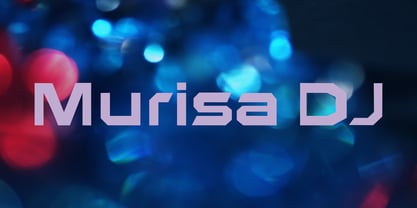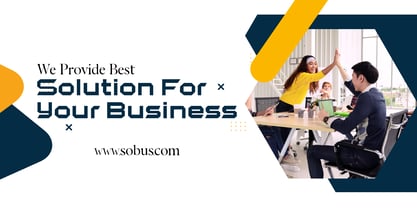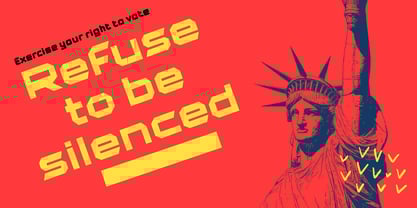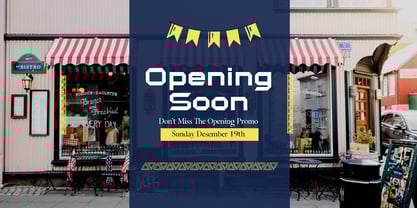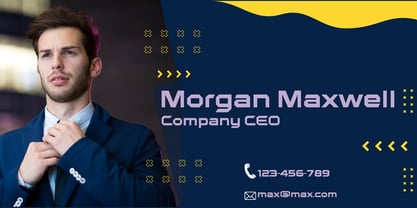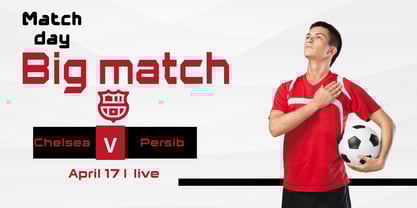
Murisa Dj
by Murisa Studio
The Murisa Dj Font Family was designed by Lili Sadili and published by Murisa Studio. Murisa Dj contains 2 styles and family package options. More about this family
Hello, how are you? It's great to be here. On this sunny afternoon, I'd like to present a unique font we've created. It's called Murisa DJ. This font is inspired by the fast-paced and dynamic atmosphere of future technology. It's perfect for those of you working in science and technology. Of course, other fields will also add to its appeal. Good luck with your work, and may success always be with you all.